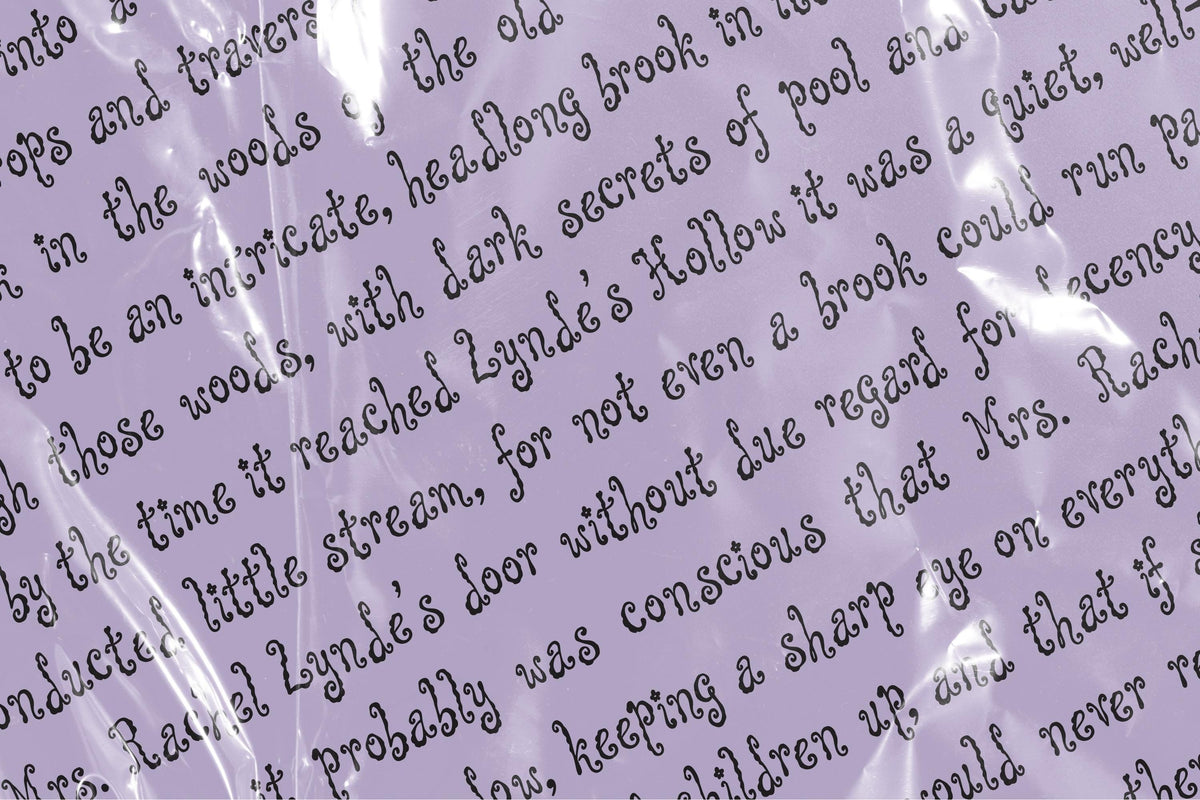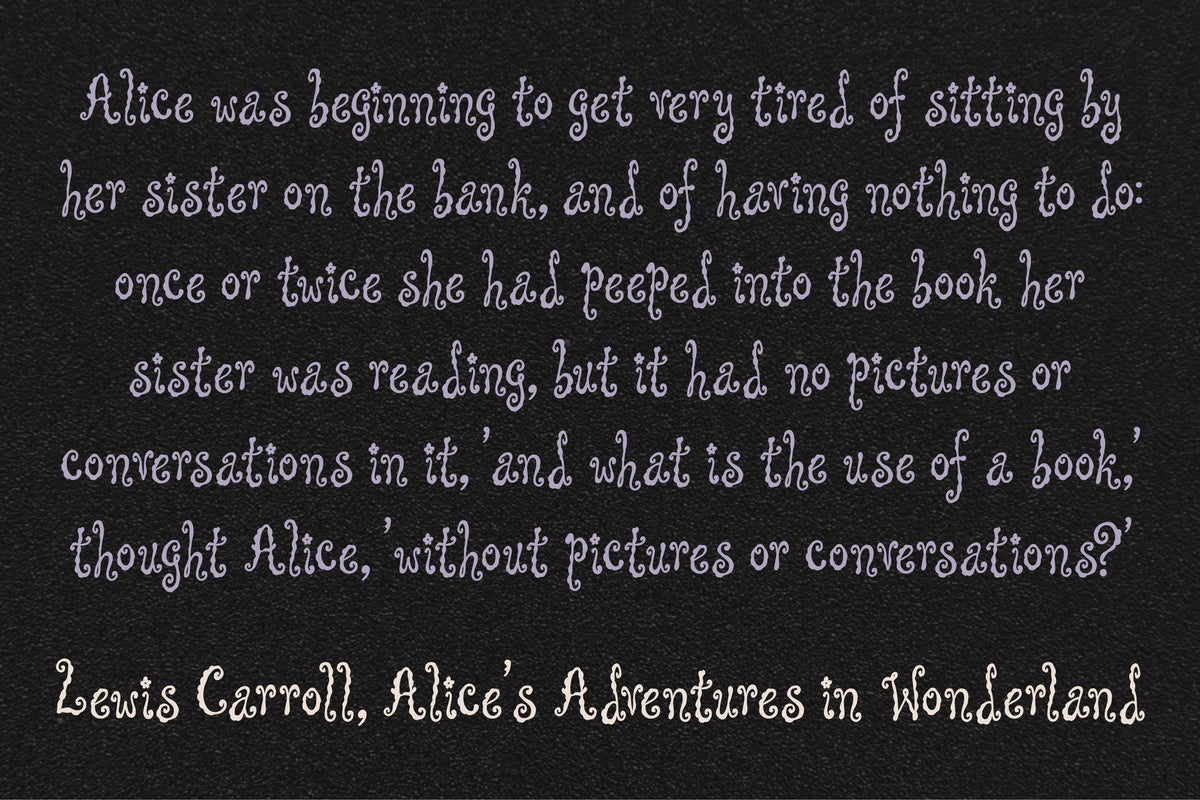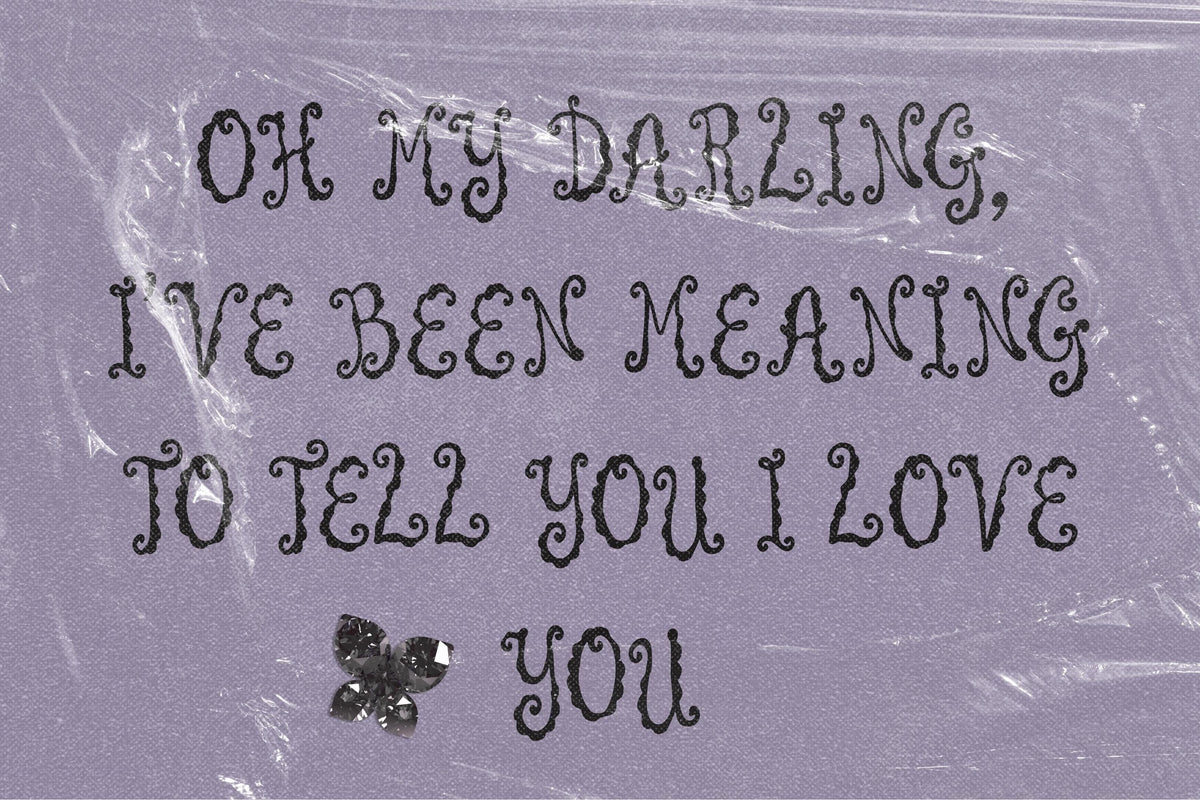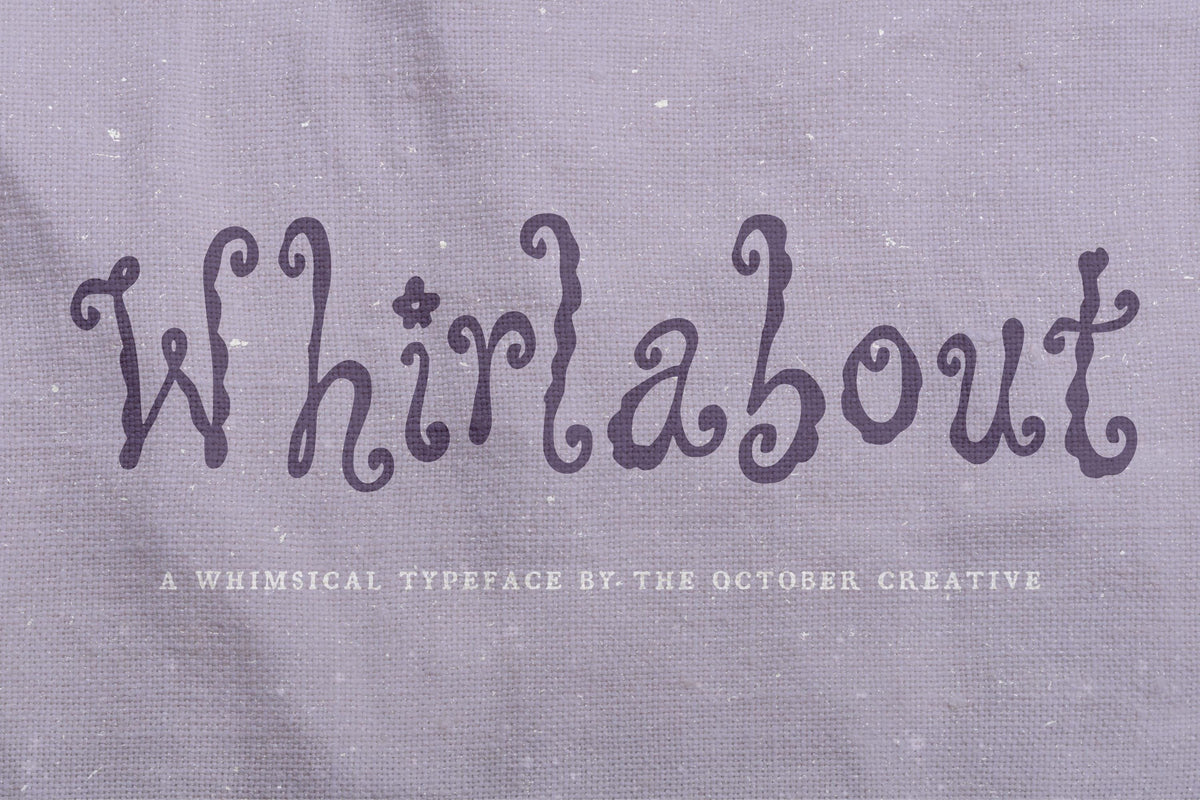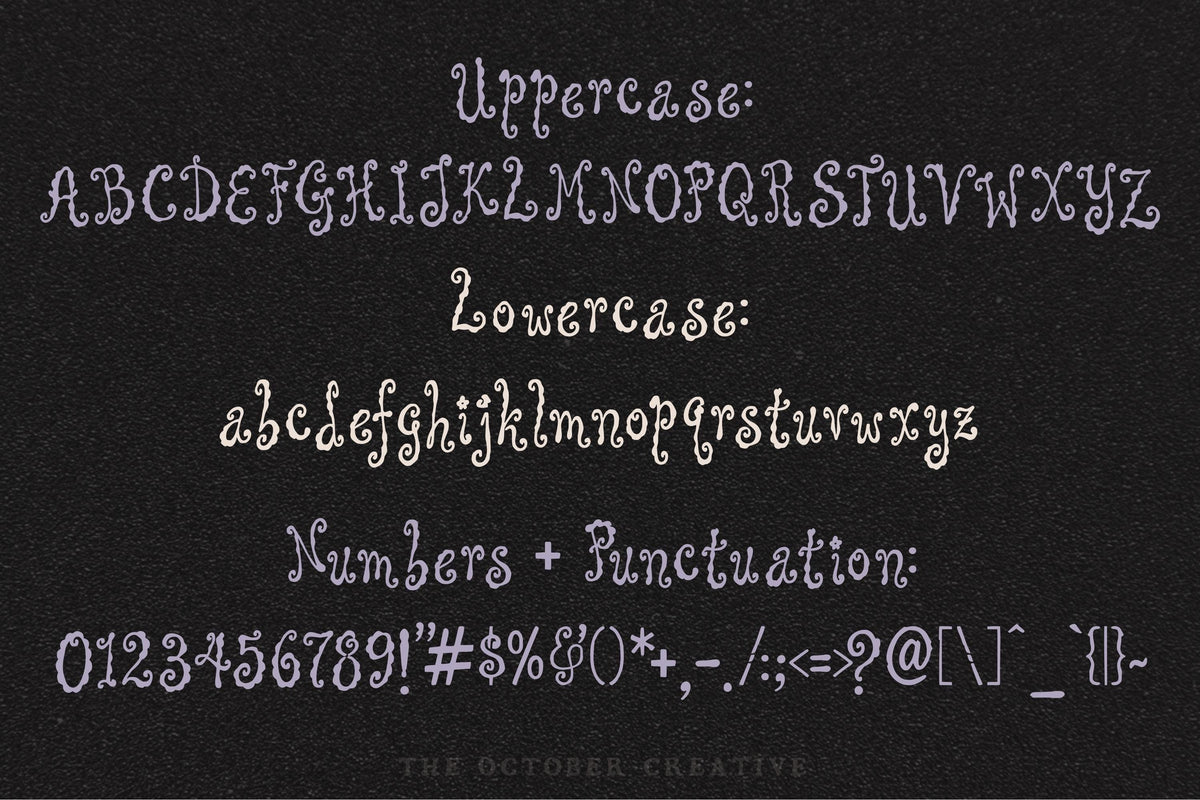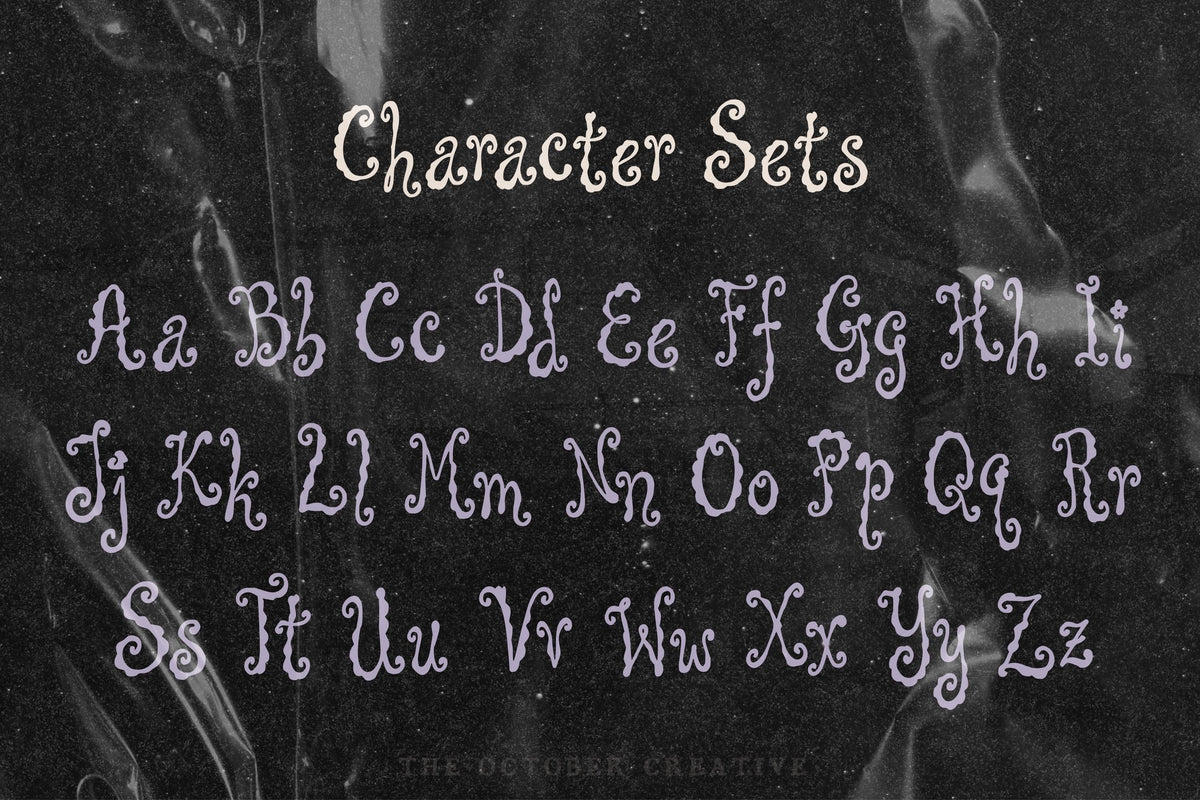
Whirlabout Font
Whirlabout sends your words curling and looping across the page, with letters that never quite stand still. It's a fun choice for carnival posters, fairground invitations, and birthday signs with a little circus in them.